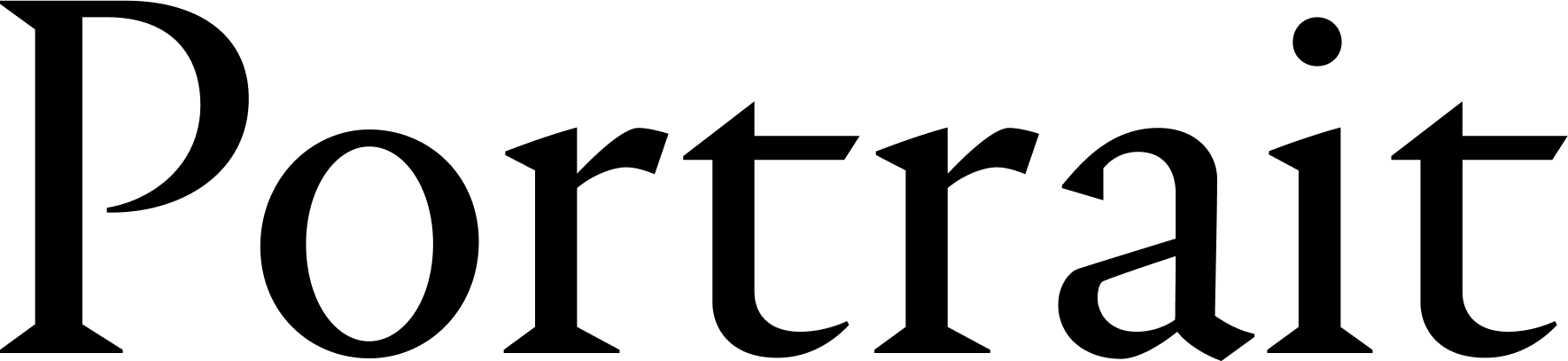
The Sun Walks Down is a novel by Fiona McFarlane that tells the story of how, in the late 19th century, the community of a small Australian town is searching for a six-year-old boy gone missing all while figuring out their own relationships, the Australian colonial history, and the causes of drought. Portrait by Berton Hasebe is used on the book’s cover. Art director of the Farrar, Straus & Giroux publishing house Na Kim designed the publication.
Portrait is a French Renaissance serif as seen by a daring modern-day minimalist designer, capable of introducing sharp triangular serifs to the proportions of that time. Portrait’s minimalistic solutions are taken to their logical extreme when it comes to its Inline styles, which appear dimensional due to the added inner strokes.